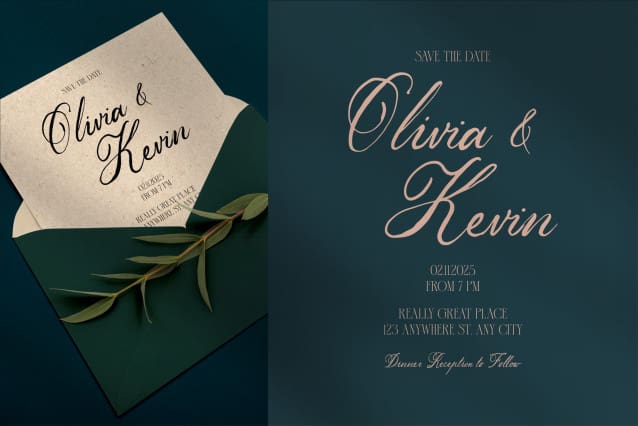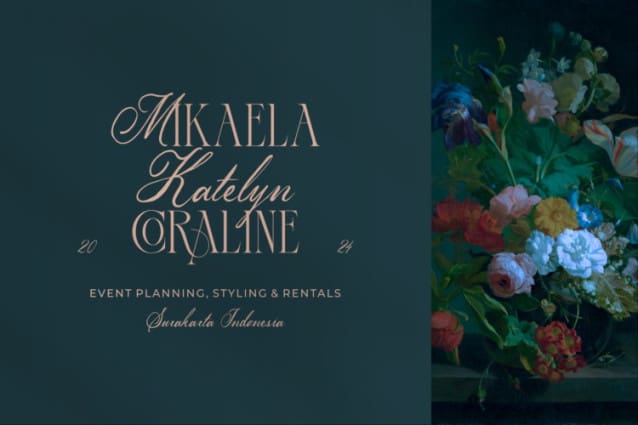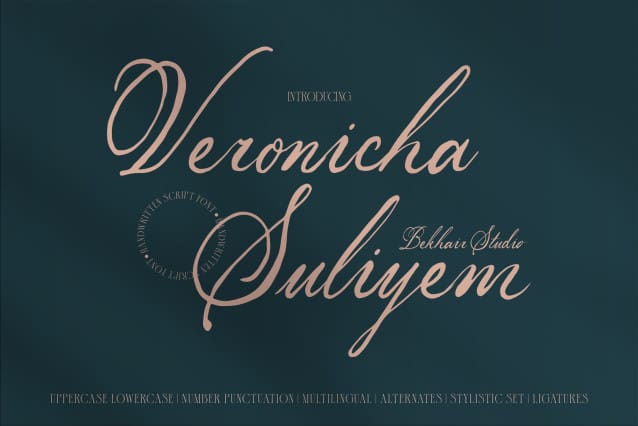
Veronicha Suliyem Font
Veronicha Suliyem Font is a beautifully crafted handwritten script font, featuring elegant, feminine strokes and a natural, flowing shape. Its delicate curves and effortless style make it the perfect choice for designs that require a personal and sophisticated touch. Ideal for magazines, posters, advertisements, skincare branding, and fashion, this typeface exudes grace and charm. Whether used for headlines, logos, or product packaging, Veronicha Suliyem brings a timeless and chic aesthetic to any project.